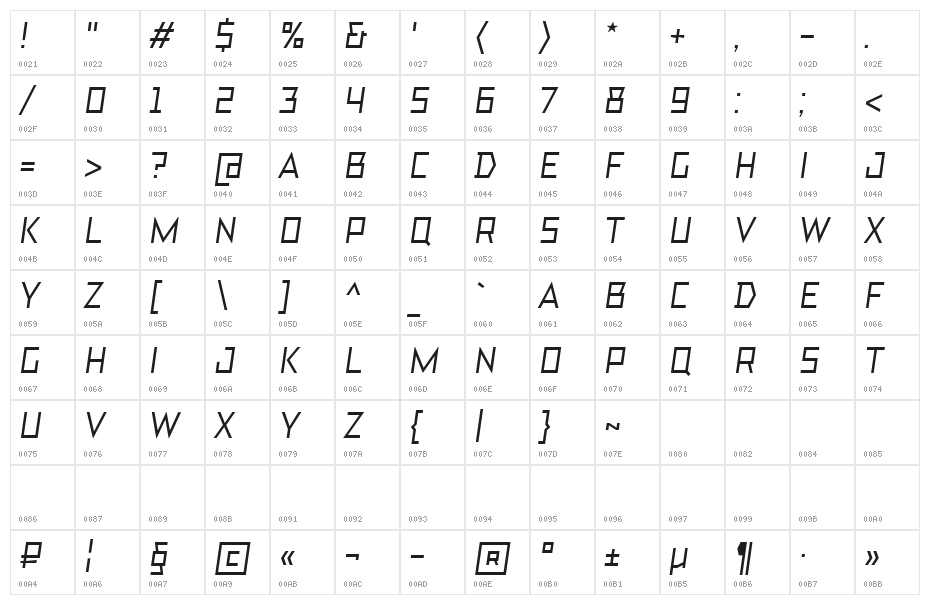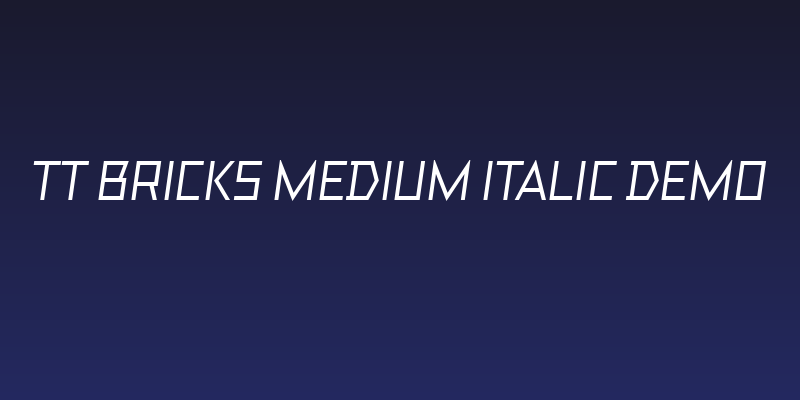
TT Bricks Medium Italic DEMO Font
TT Bricks Medium Italic DEMO Description
This font features a geometric and modern design with a distinct italic slant, giving it a dynamic and forward-moving appearance. The characters are constructed with clean, straight lines and sharp angles, creating a sense of precision and technicality. The uppercase and lowercase letters maintain a consistent style, with uniform stroke widths that contribute to a cohesive look. The numerals and special characters are designed to match the angular and structured aesthetic, ensuring visual harmony across all elements. This font's unique style makes it suitable for projects that require a contemporary and edgy feel.
Proposed ProjectsIdeal for technology branding, modern advertising, futuristic posters, and digital interfaces.